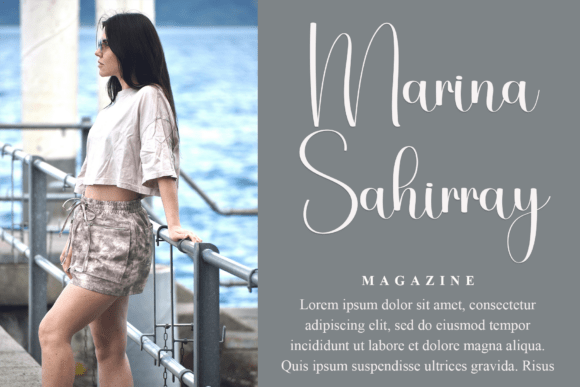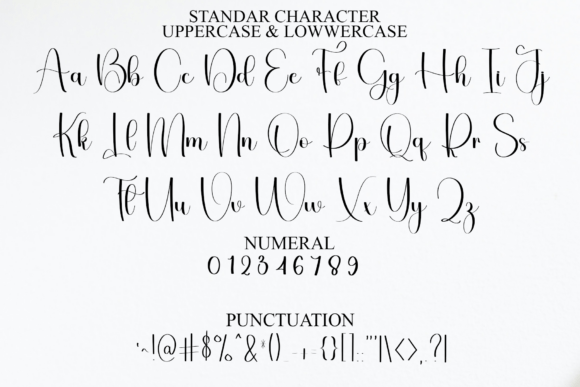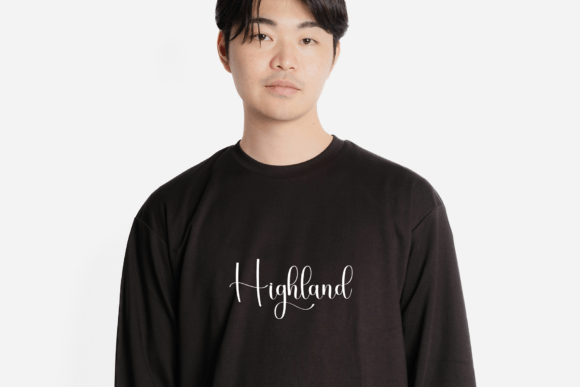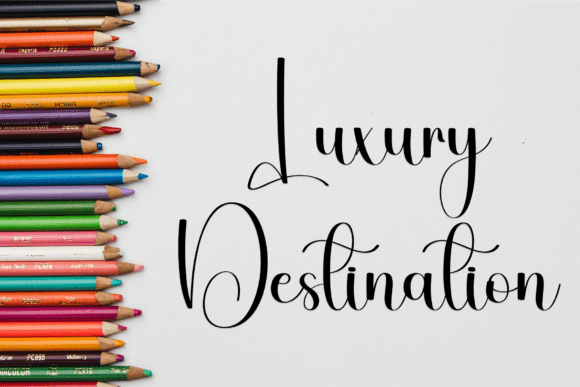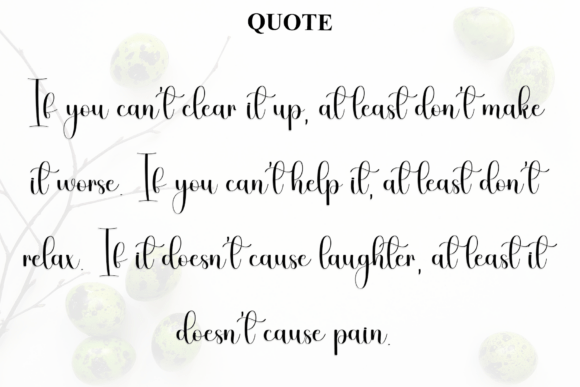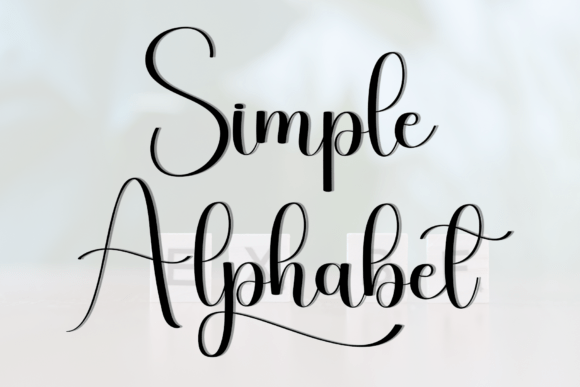
Elegant Alphabet Font: Add a Touch of Holiday Magic to Your Designs
The holiday season is upon us, and what better way to get into the spirit than with a festive and merry typeface? Introducing the Elegant Alphabet Font, a beautiful and enchanting font that captures the essence of the holiday season. With its decorative elements and whimsical flair, this font is perfect for adding a touch of magic to your designs.
Elegant Alphabet Font is a carefully crafted typeface that embodies the joy and wonder of the holiday season. Its decorative elements, such as intricate swirls and flourishes, add a touch of elegance and sophistication to your designs. The font’s whimsical flair, including playful glyphs and ligatures, brings a sense of fun and playfulness to your typography.
Whether you’re designing greeting cards, gift tags, or holiday-themed projects, Elegant Alphabet Font is the perfect choice. The font’s festive and merry vibe makes it ideal for capturing the spirit of the holiday season. Use it to create eye-catching headings, add a personal touch to your gift tags, or create festive and fun designs for social media and marketing campaigns.
One of the best features of Elegant Alphabet Font is that it’s PUA (Private Use Area) encoded. This means that you can access all of the amazing glyphs and ligatures with ease, without having to worry about complicated font editing software. With PUA encoding, you can simply copy and paste the glyphs and ligatures into your designs, making it easy to add a touch of elegance and sophistication to your typography.
Bring a Cheerful and Nostalgic Ambiance to Your Words
Elegant Alphabet Font brings a cheerful and nostalgic ambiance to your words, evoking memories of Christmases past. The font’s classic and timeless design makes it perfect for creating designs that feel both modern and vintage. Whether you’re designing for personal or commercial use, this font is sure to bring a smile to your face and a touch of magic to your designs.
Use Elegant Alphabet Font for a Variety of Projects
Elegant Alphabet Font is versatile and can be used for a variety of projects, including:
- Gift tags and wrapping paper
- Holiday-themed social media graphics and marketing campaigns
- Personalized gifts and decorations
- Stationery and journaling
Make Your Typography Shine
With Elegant Alphabet Font, you can make your typography shine with the magic of Beautiful Font. The font’s elegant and sophisticated design makes it perfect for adding a touch of luxury and refinement to your designs. Whether you’re a designer, crafter, or DIY enthusiast, this font is sure to become a favorite in your collection.
In conclusion, Elegant Alphabet Font is a beautiful and enchanting typeface that captures the spirit of the holiday season. With its decorative elements, whimsical flair, and PUA encoding, this font is perfect for adding a touch of magic to your designs. Whether you’re designing greeting cards, gift tags, or holiday-themed projects, Elegant Alphabet Font is sure to bring a cheerful and nostalgic ambiance to your words. So why wait? Get your hands on this amazing font today and make your typography shine!